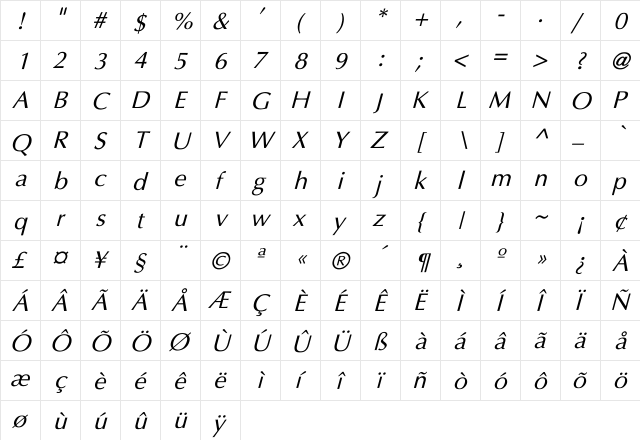
Eppley Italic
Design Context for Eppley Typeface
Eppley offers clean, dependable letterforms without strong stylistic allegiance, making it a practical choice for designers who need flexibility. The dynamic lean of this cut emphasises speed and emphasis in any layout.
Pro Tip: Use Eppley for emphasis, pull quotes, and subheadings where its slanted energy can add rhythm to the layout.